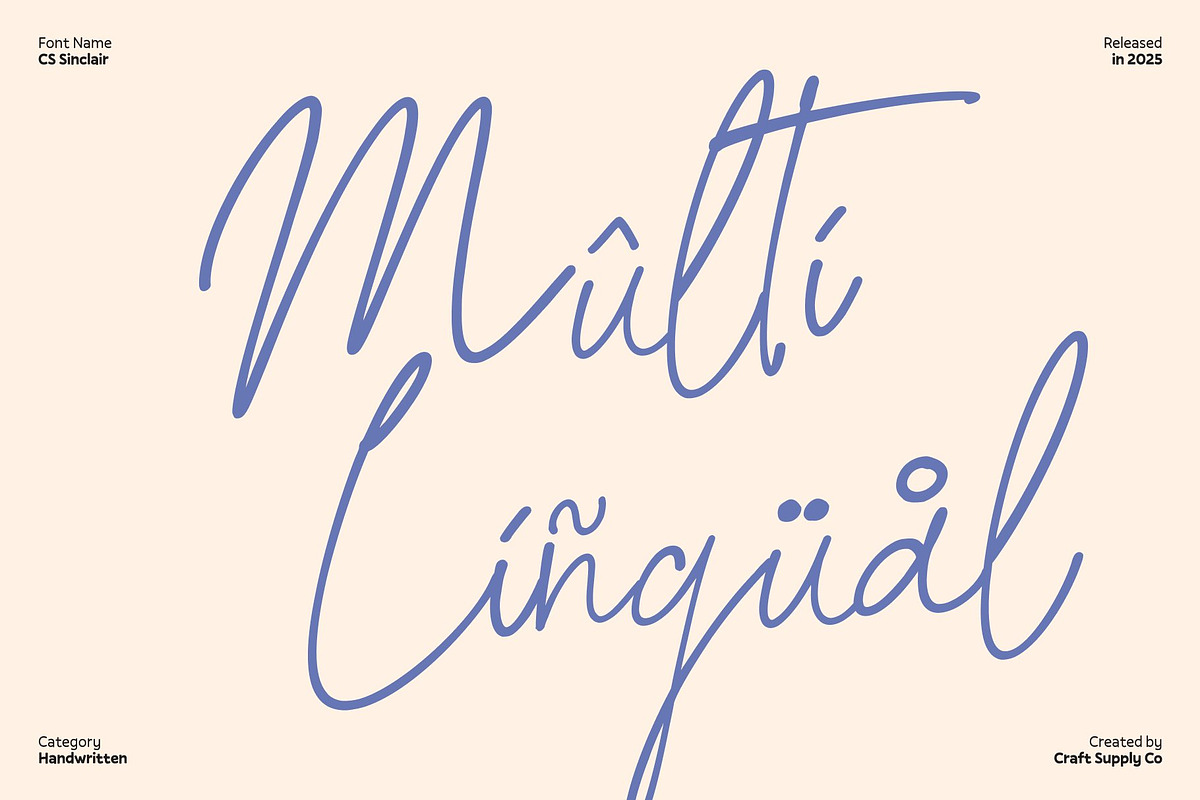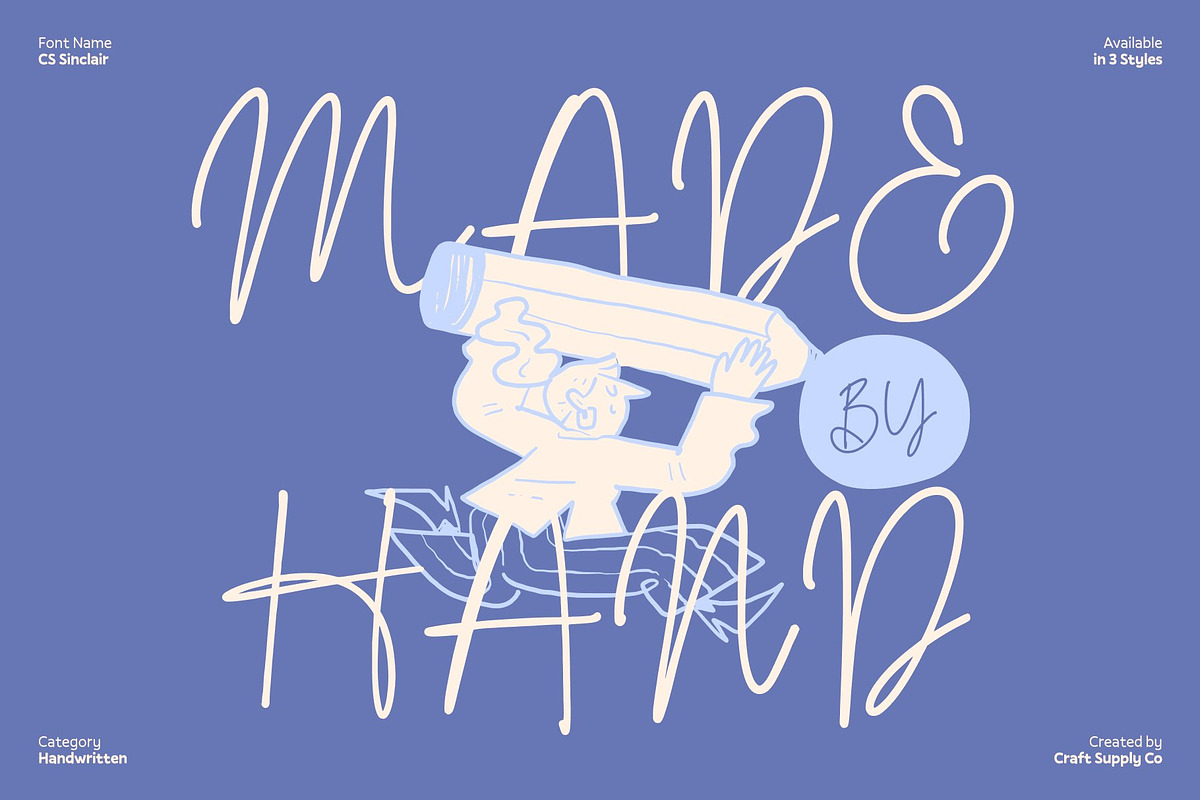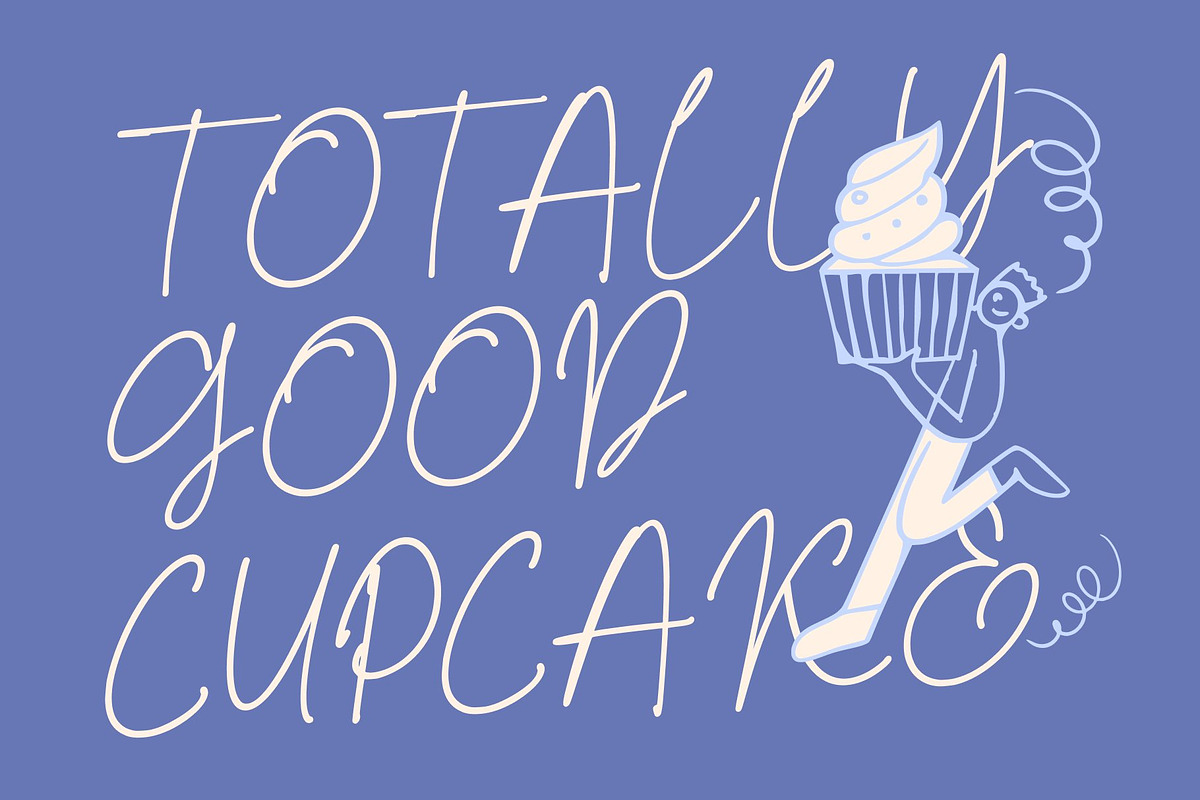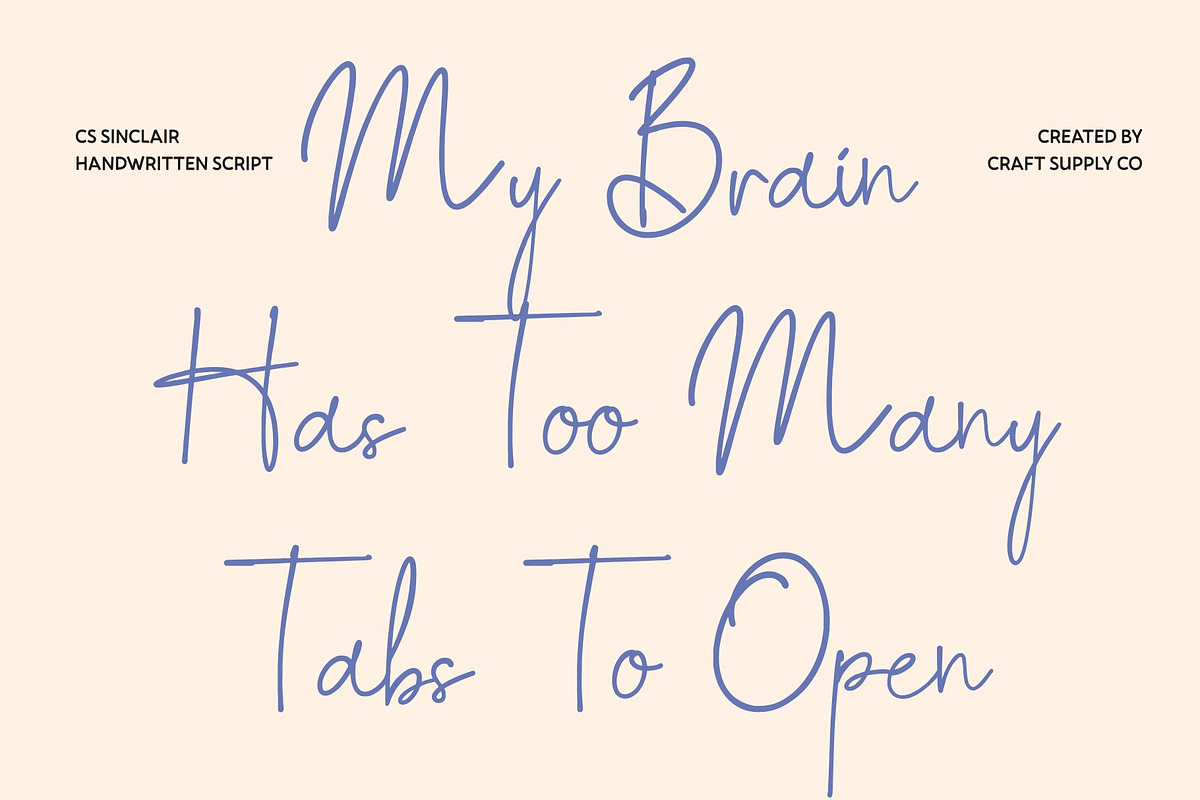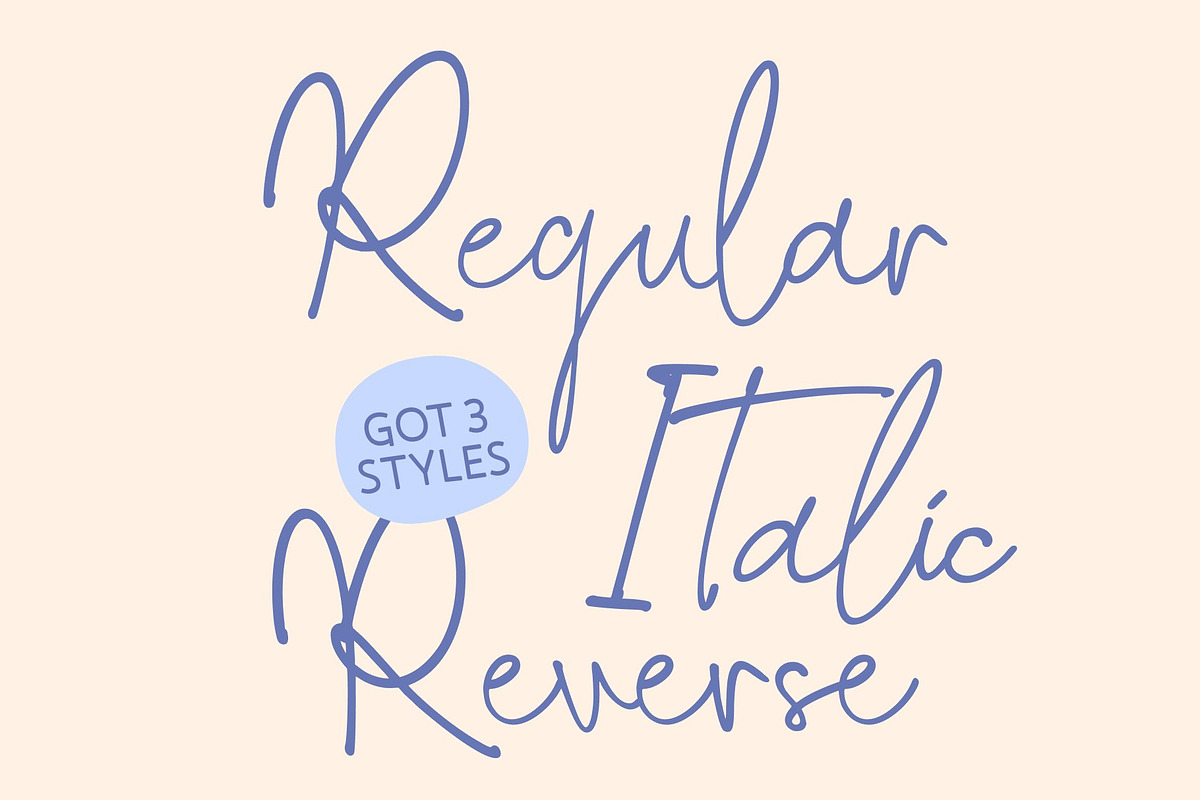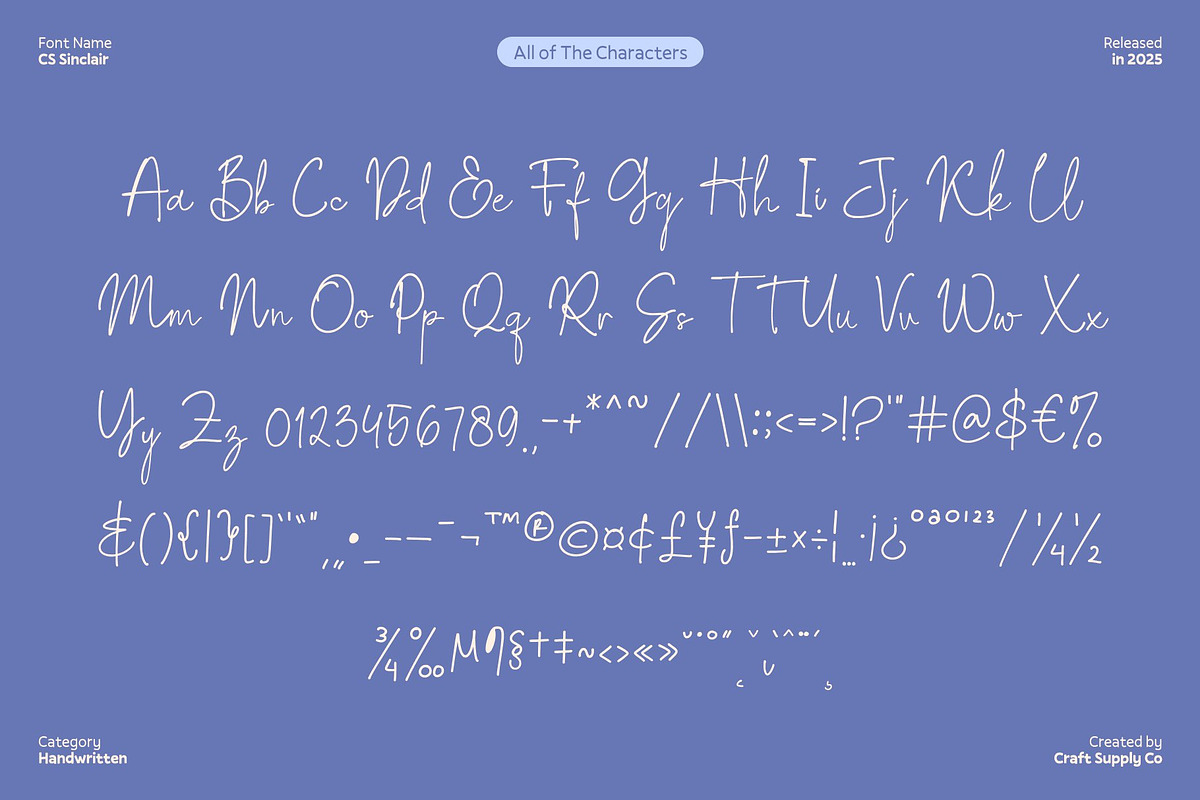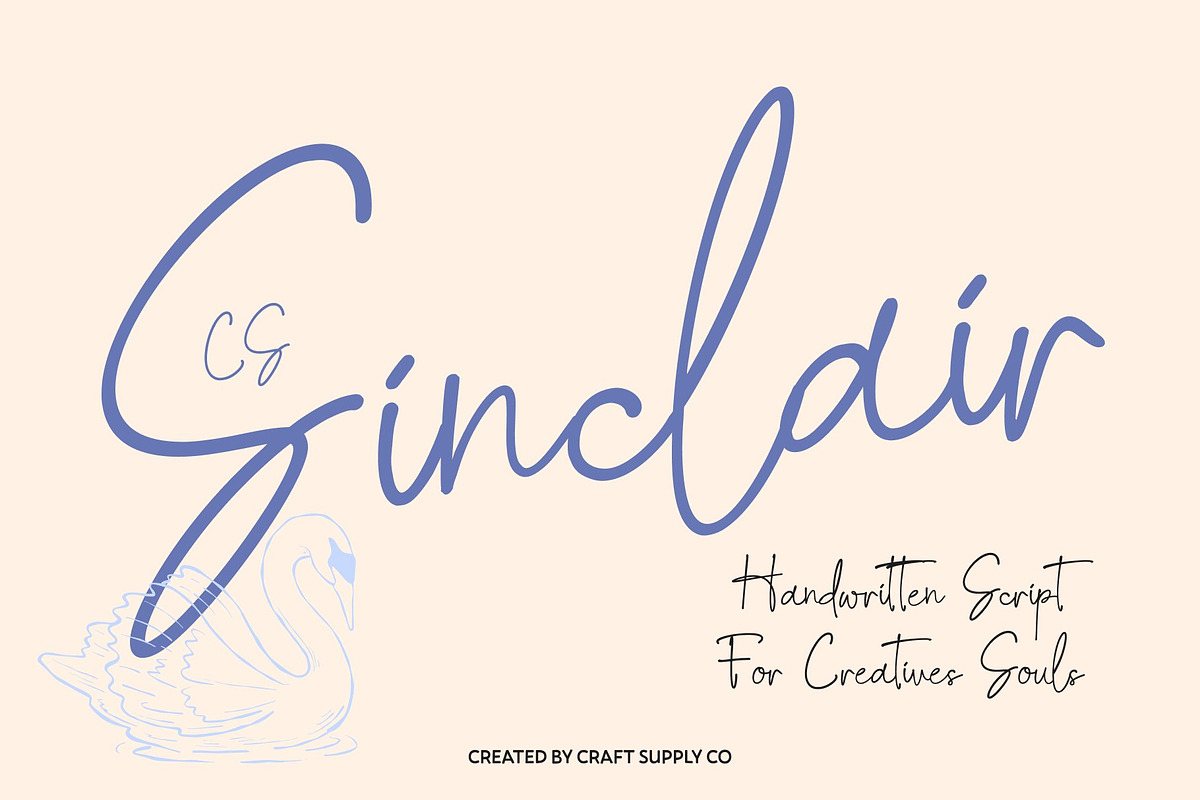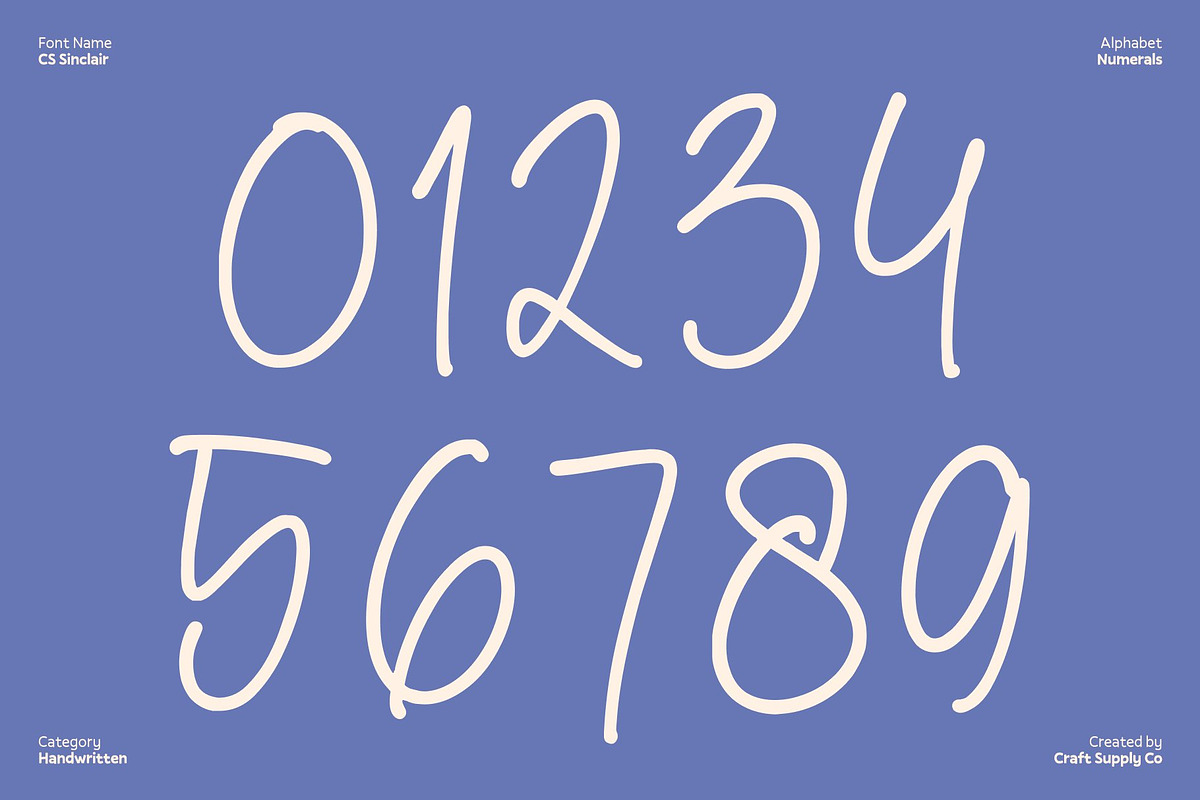
CS Sinclair – Handwritten Script
CS Sinclair – Handwritten Script Font with Soft Expressive Flow
Soft Letterforms Inspired by Natural Writing This is a handwritten script font that captures the gentle charm of natural pen strokes. Its smooth curves and relaxed connections create a flowing rhythm that feels effortless and organic. Each character reflects the subtle variations found in real handwriting, giving the font a soft and expressive personality that feels genuine rather than manufactured.
Expressive Movement with Warm Authenticity Designed with a focus on expression, this font delivers a warm and inviting tone through its balanced strokes and fluid motion. The slight inconsistencies in line flow add realism and depth, allowing the font to convey emotion and sincerity.
Casual Elegance with Versatile Appeal This font balances casual charm with refined readability, making it suitable for a wide range of creative uses. Its gentle handwritten style pairs beautifully with clean layouts or minimal graphics, adding softness without overpowering the design. The font maintains clarity at various sizes, ensuring that its expressive nature remains legible and effective.
Perfect for Personal Branding, Quotes, and Invitations This font excels in personal branding, quotes, casual invitations, greeting cards, and lifestyle visuals. It adds a heartfelt touch to logos, social media content, stationery, and editorial highlights. Whether used to share a message, tell a story, or enhance a brand’s personality, this font brings warmth, authenticity, and natural elegance to every design.